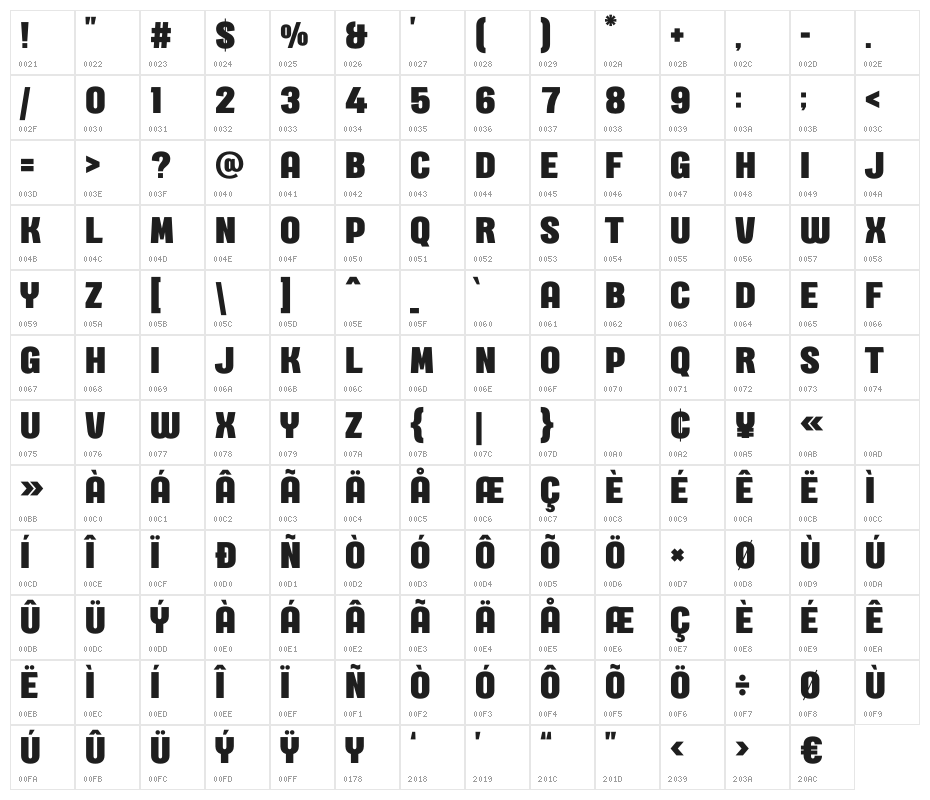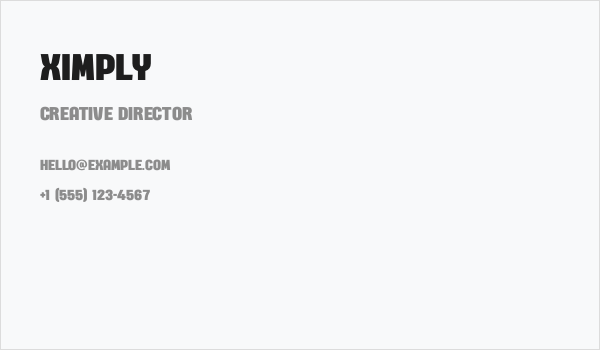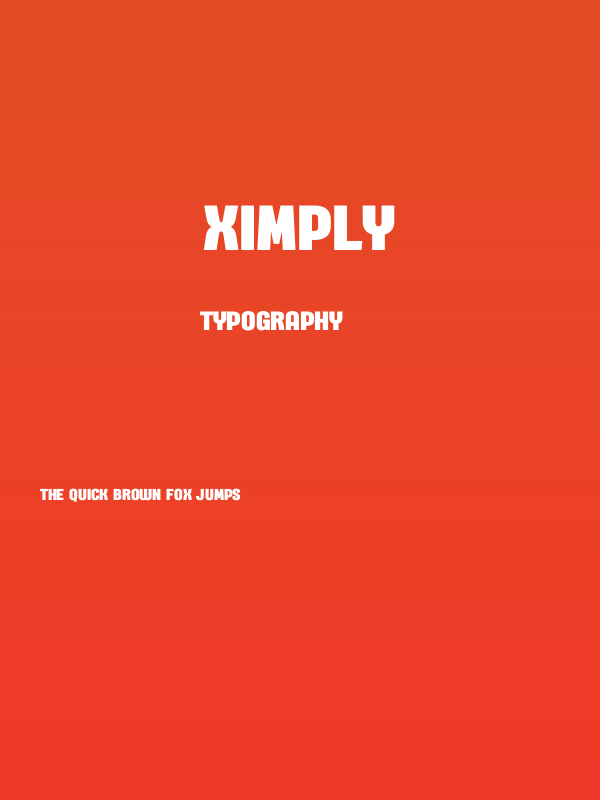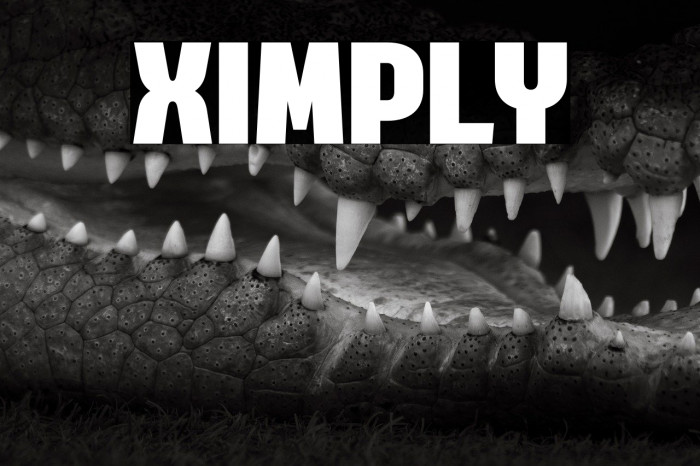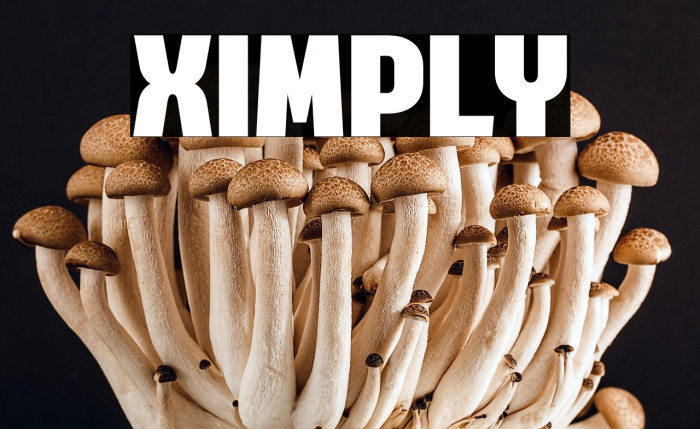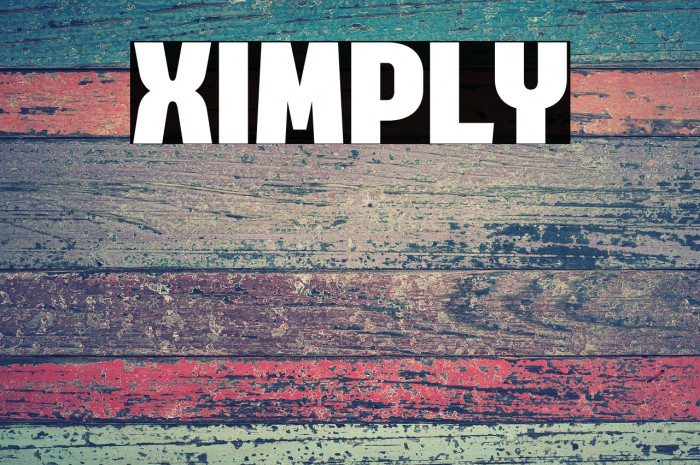
Ximply Font
Ximply Description
This font is a bold and impactful typeface characterized by its thick, uniform strokes and strong presence. The uppercase and lowercase letters maintain a consistent weight, contributing to its robust and solid appearance. The numbers and special characters follow the same bold style, ensuring uniformity across all glyphs. The font's design is straightforward, with minimal contrast in stroke thickness, making it highly legible and suitable for attention-grabbing applications.
| Proposed Projects | Ideal for headlines, posters, banners, and any design requiring a strong visual impact. |